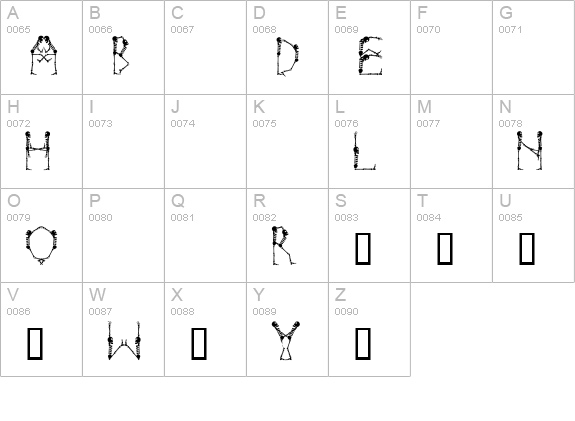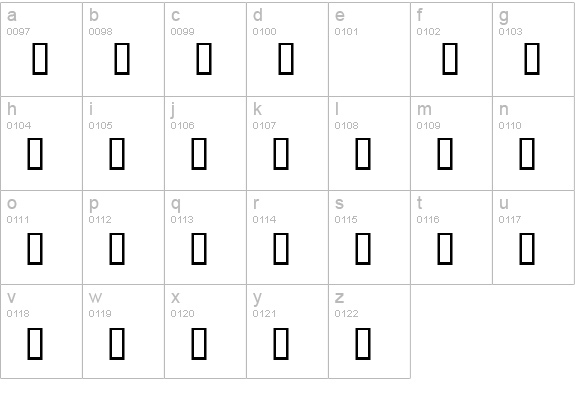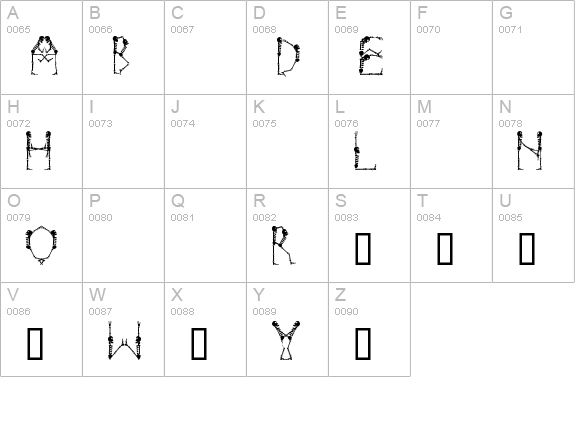
Boneyard Font Details
Boneyard font is a captivating and edgy typeface that exudes a sense of mystery and intrigue. With its bold, rugged letterforms and distressed texture, this font is perfect for adding a touch of darkness and intensity to your designs. Whether you're working on a horror-themed project, a vintage poster, or a grunge-inspired design, Boneyard font is sure to make a powerful statement. And the best part? Boneyard font is completely free to download at FontsMarket.com. You can easily add this unique font to your collection without having to spend a dime. So why wait? Give your designs a bold and distinctive look with Boneyard font today!